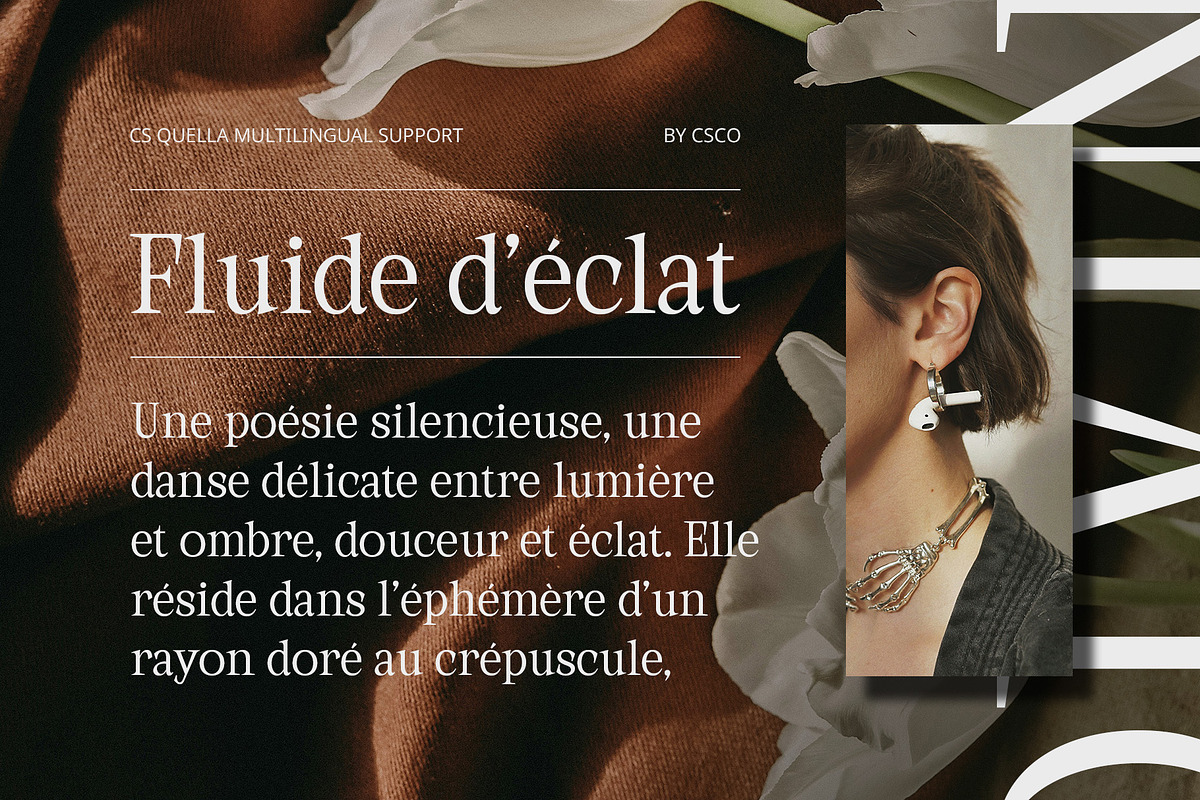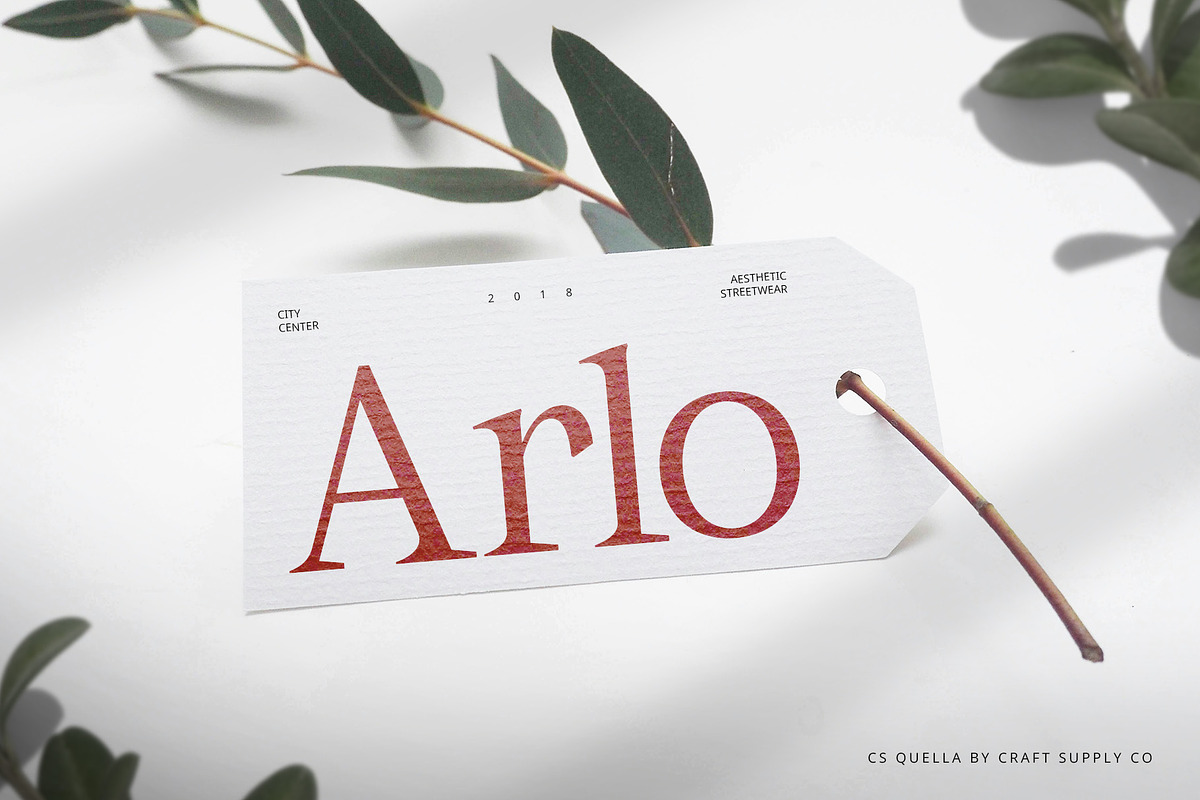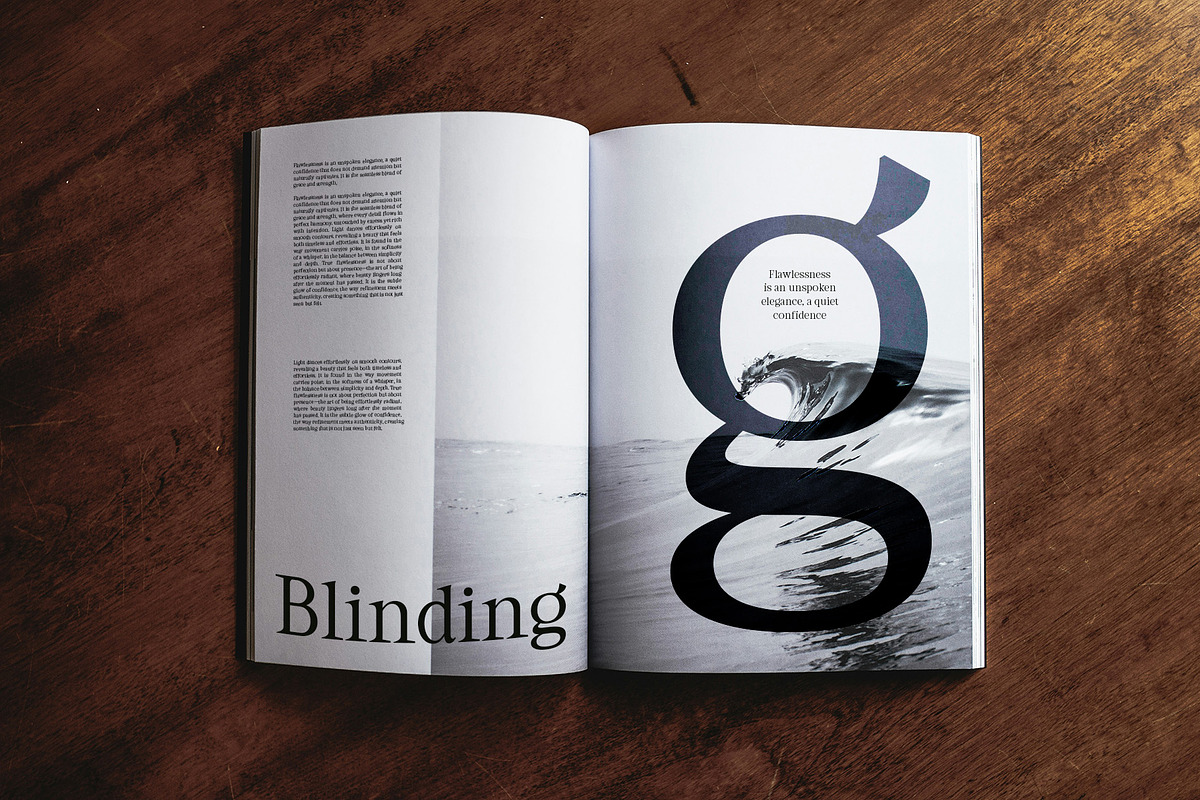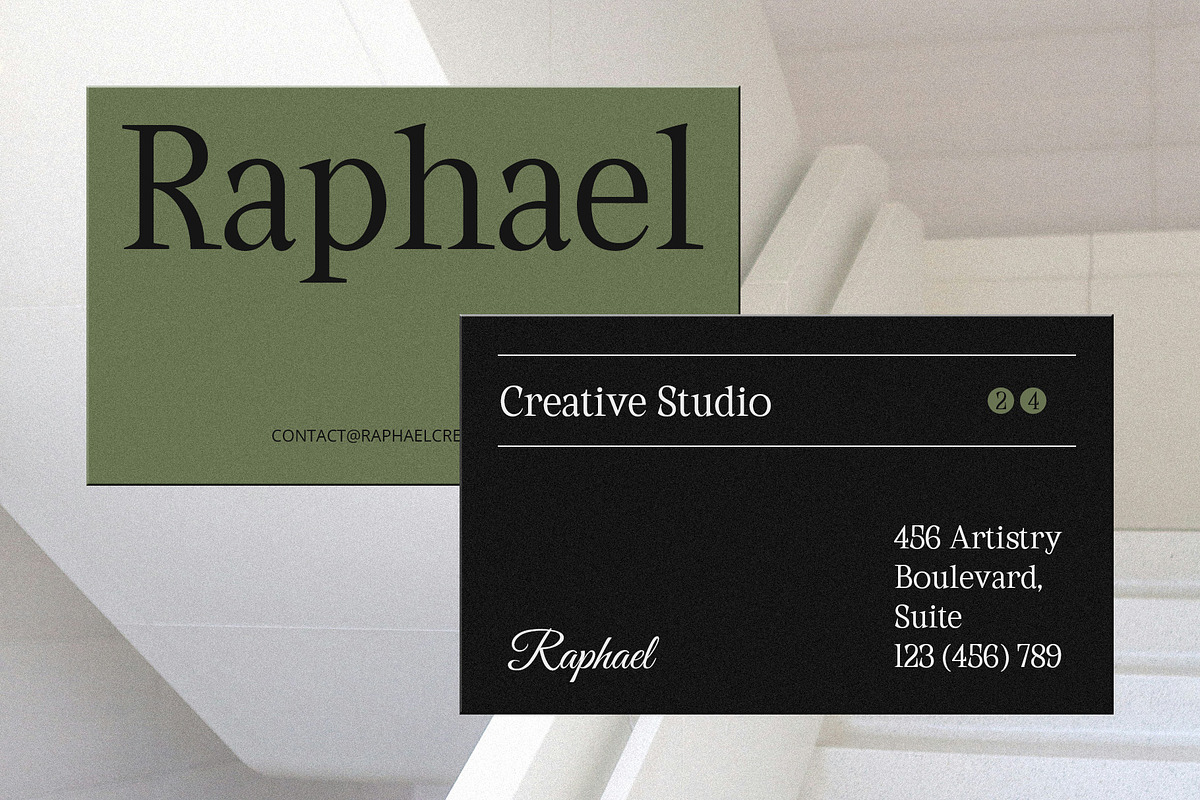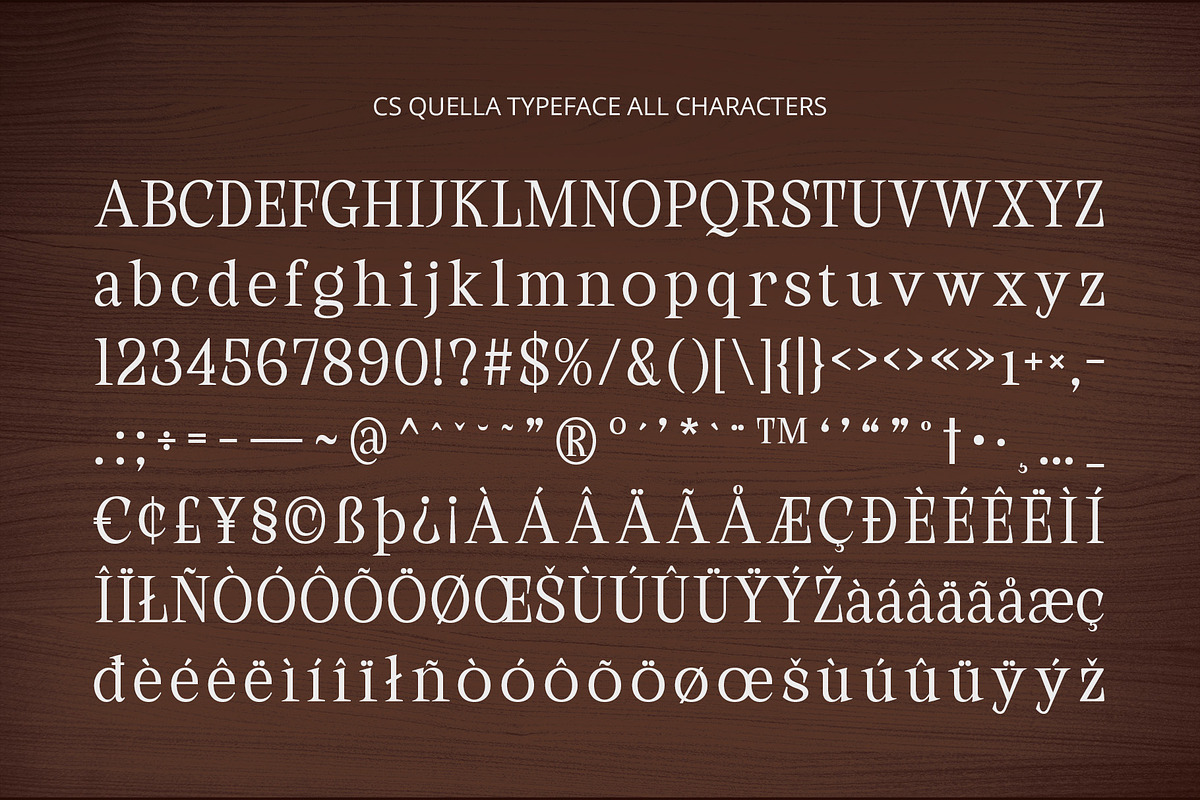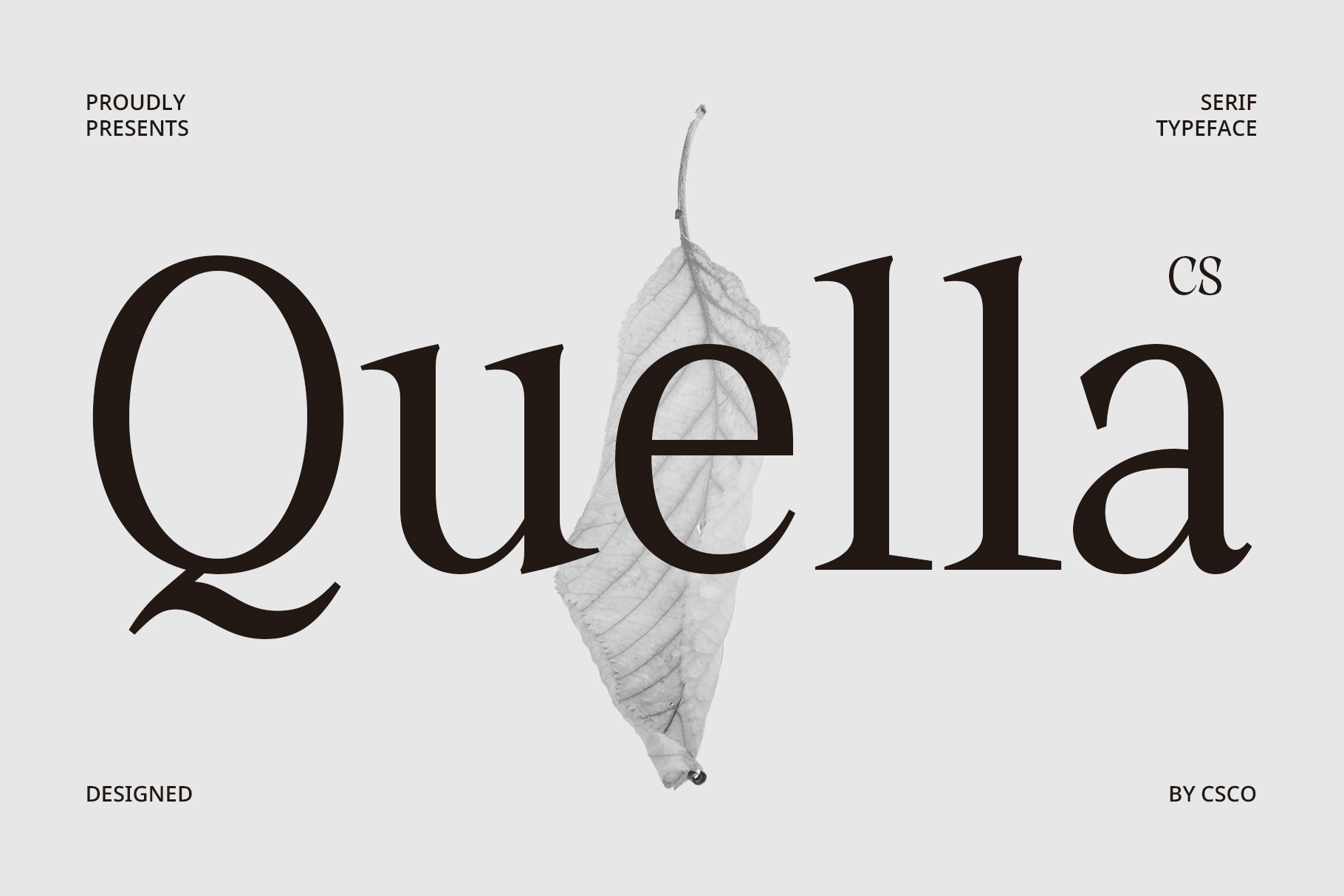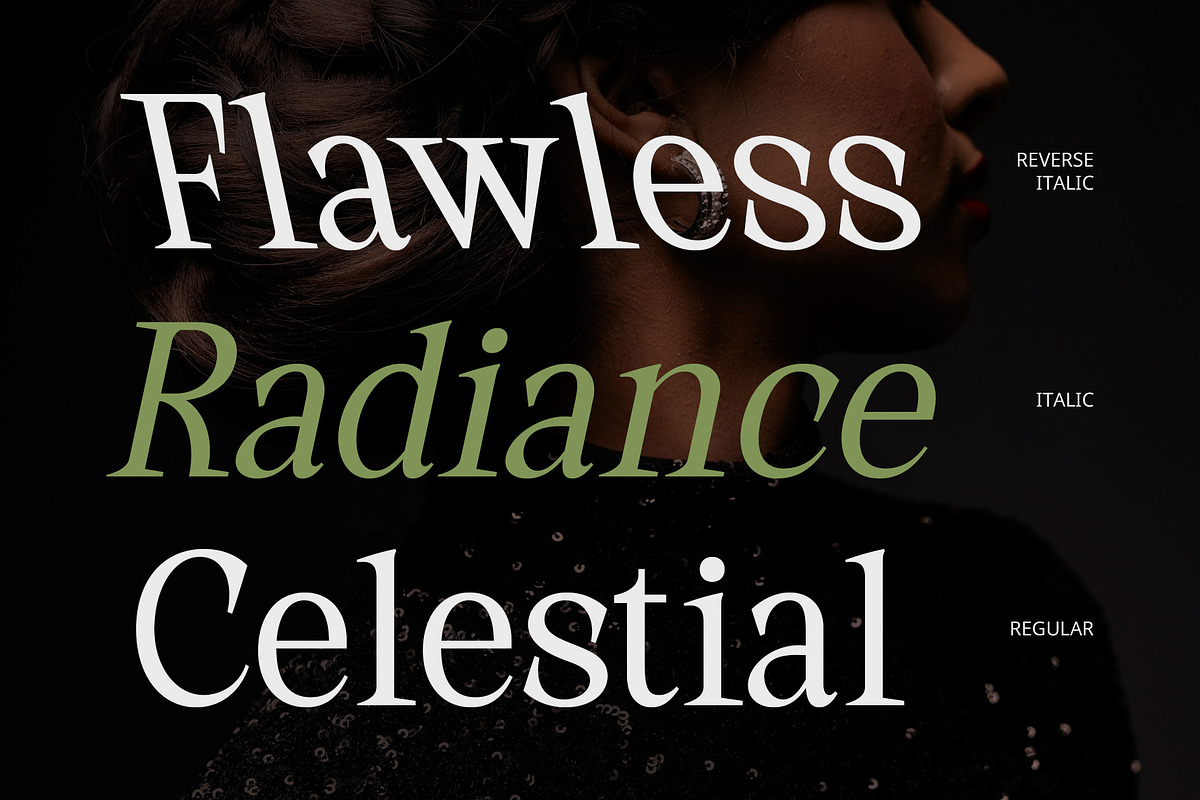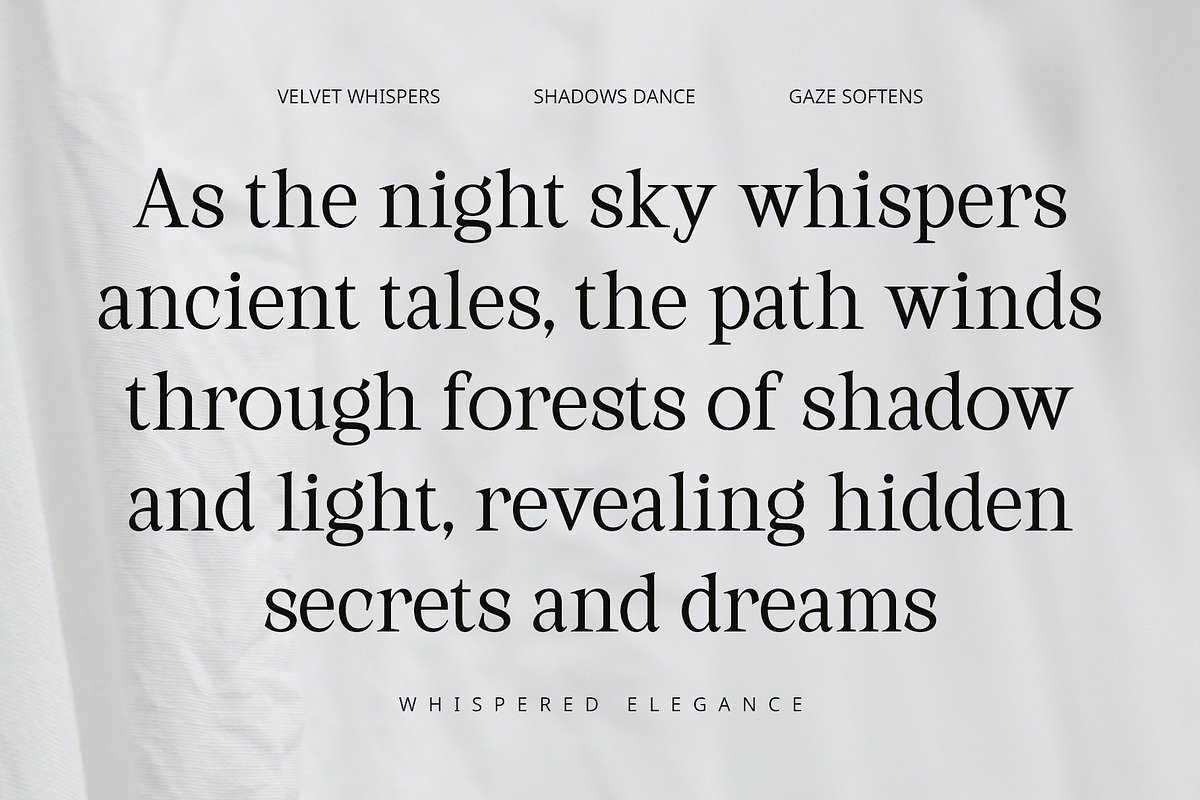
CS Quella – Contemporary Font
CS Quella Font – A Contemporary Serif with Timeless Elegance
Modern Classic Serif for Sophisticated Designs CS Quella is a modern classic serif font that seamlessly blends contemporary elegance with timeless sophistication. Designed with refined serifs, balanced proportions, and delicate detailing, this font exudes an upscale and polished aesthetic, making it perfect for high-end design applications. Its graceful yet commanding presence allows it to work beautifully across various design needs, from branding to editorial layouts.
Luxury Meets Modernity With its clean structure and graceful curves, CS Quella embodies a sense of luxury and refinement. The font’s delicate yet confident presence enhances its versatility, allowing it to adapt to both traditional and modern design styles while maintaining a highly professional look.
Perfect for Premium Branding and Editorials Ideal for premium branding, luxury fashion, editorial layouts, and corporate identity, CS Quella elevates any project with its chic and exclusive appeal. Its sophisticated letterforms make it a top choice for designers looking to create a refined and distinguished brand presence.
A Contemporary Font for Elegant Impressions CS Quella is more than just a font—it’s a statement of modern grace and upscale aesthetics. Whether used in branding, print, or digital media, this font ensures a polished and prestigious visual impact, setting the tone for designs that demand nothing less than excellence.
- CS Quella Regular
- CS Quella Italic
- CS Quella Reverse Italic